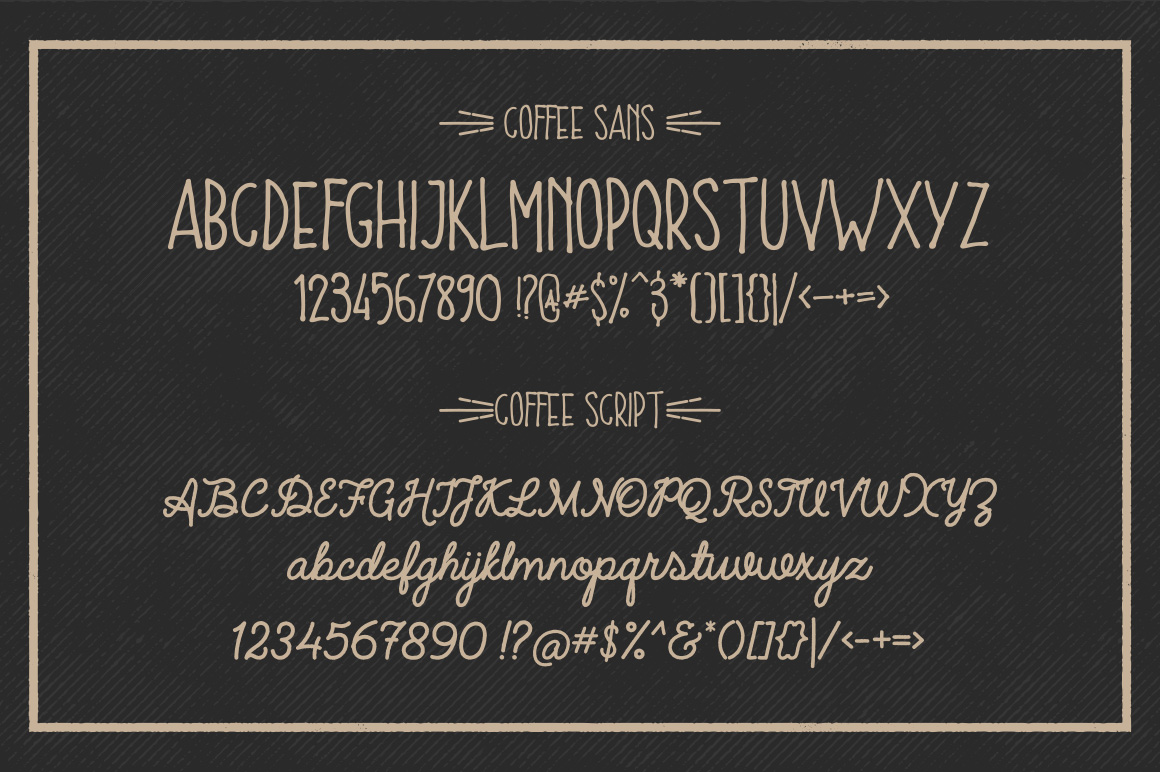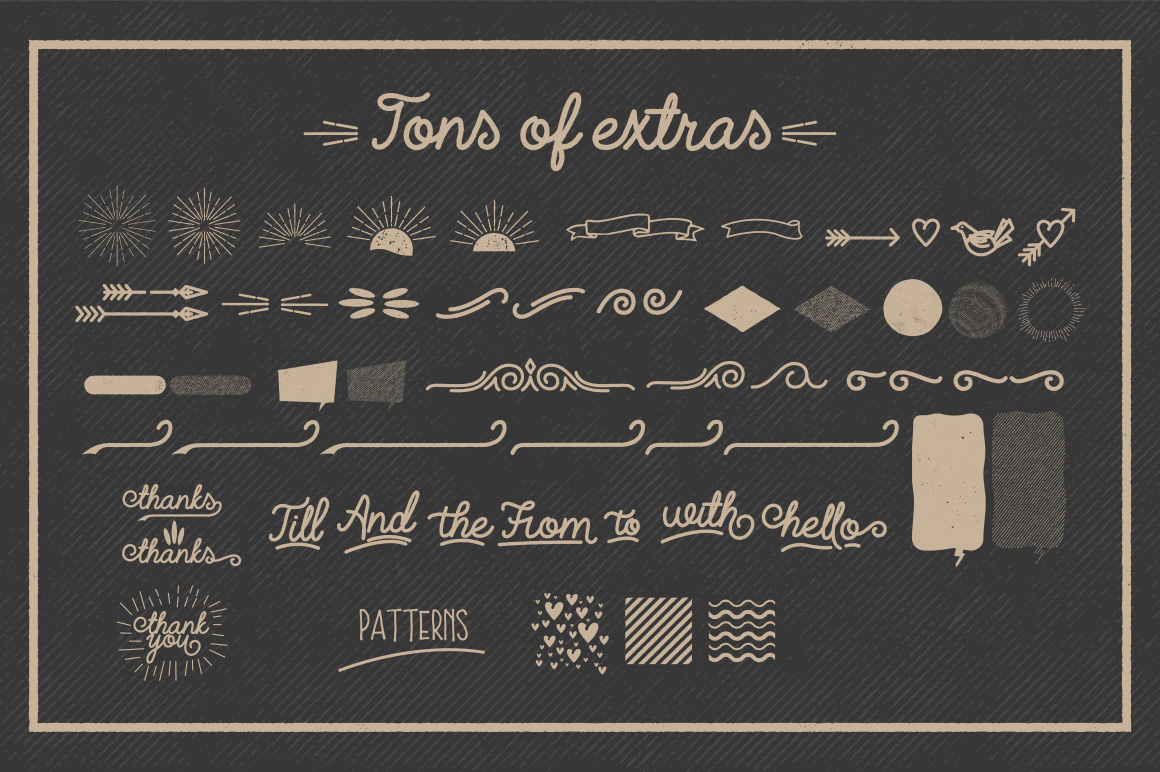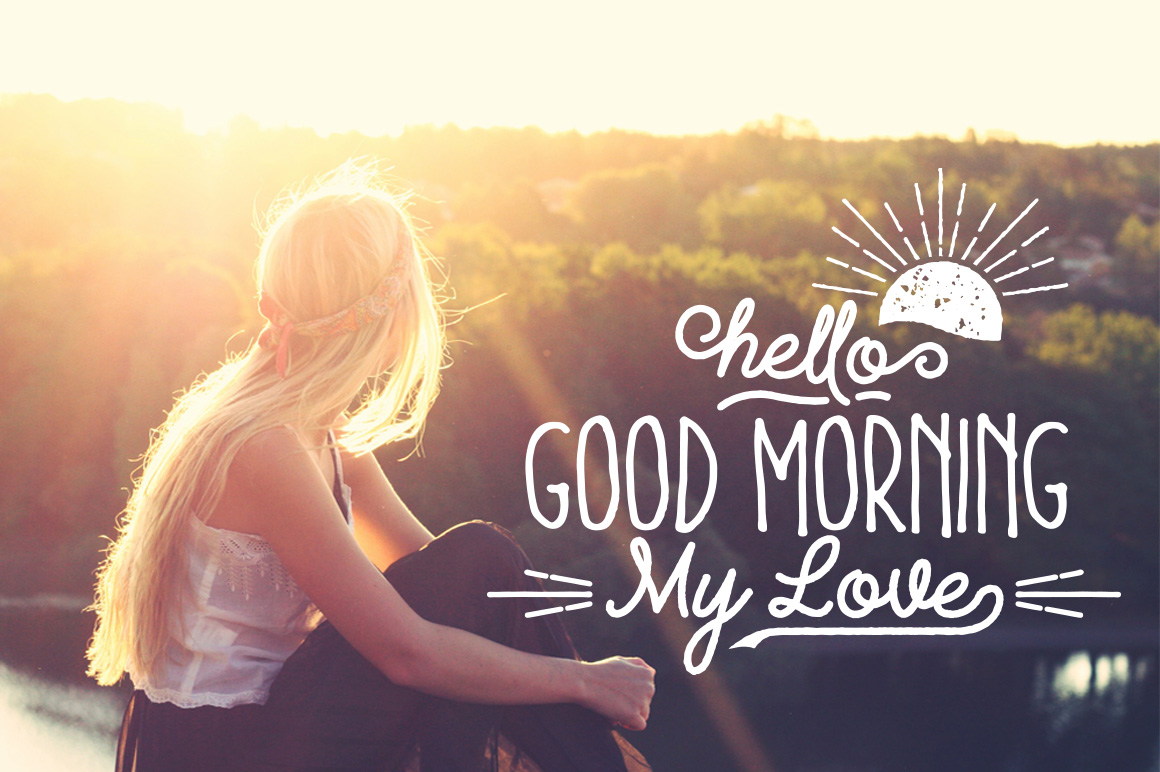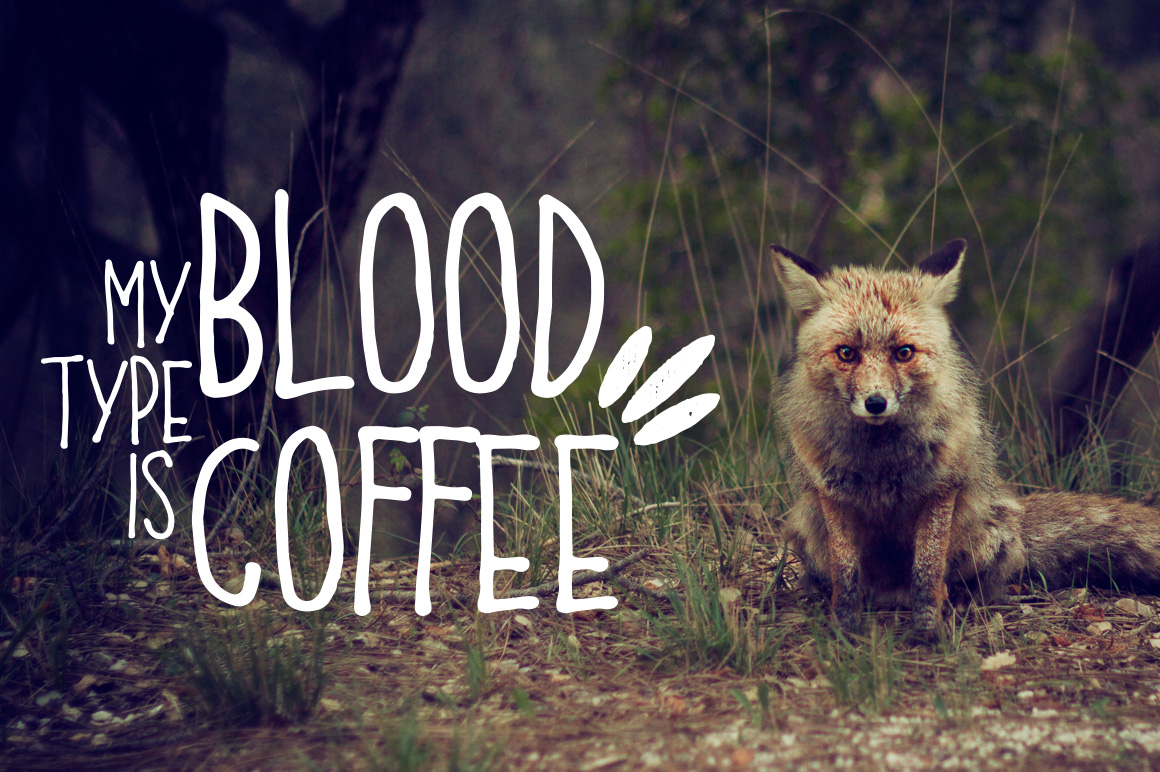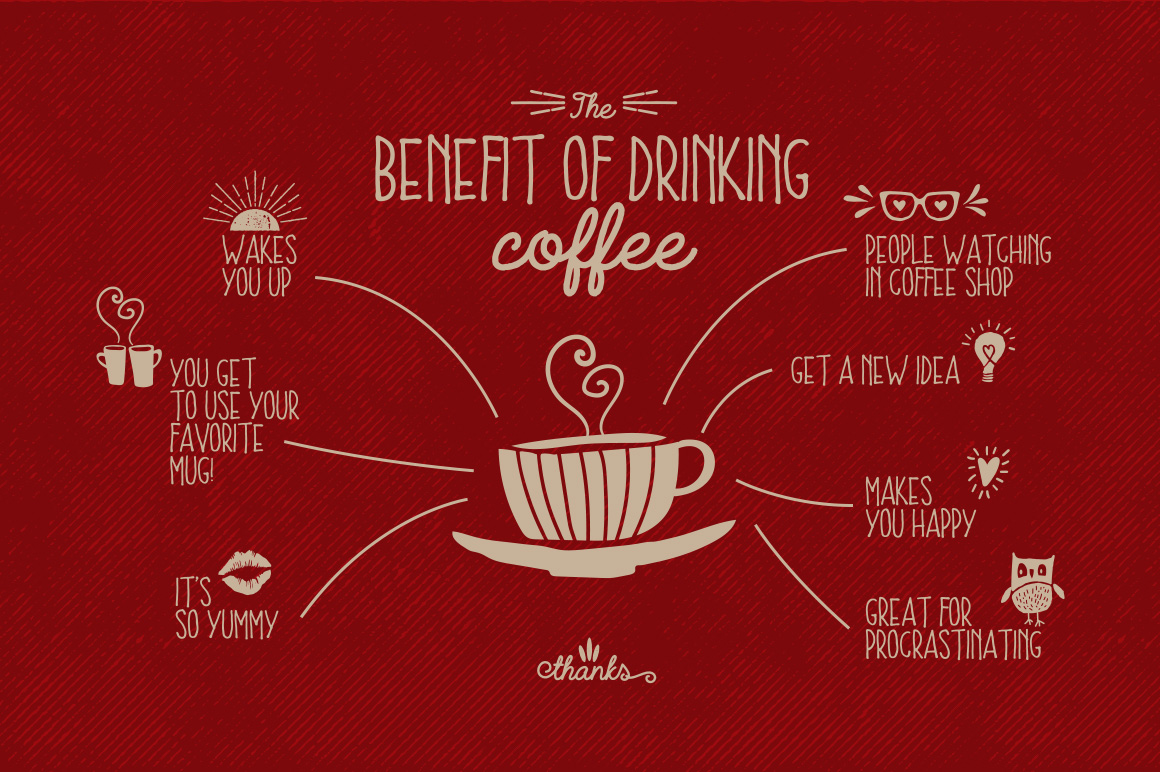
Coffee Font + Extras Font: A Quaint and Friendly Duo to Warm Up Your Designs
Are you tired of using the same old fonts in your design work? Look no further! The Coffee Font + Extras Font duo is here to add a touch of warmth and quaintness to your creations. This charming font combination is perfect for designers and crafters who want to give their work a friendly and approachable feel.
A Perfect Pair: Sans Serif and Script Fonts
The Coffee Font + Extras Font set includes two fonts that work beautifully together: a sans serif font and a script font. The sans serif font is clean and modern, while the script font adds a touch of elegance and sophistication. When used together, they create a unique and visually appealing contrast that will make your designs stand out.
What Makes Coffee Font + Extras Font So Special?
So, what makes this font duo so special? For starters, the fonts are phenomenally quaint and friendly, making them perfect for designs that require a personal touch. The sans serif font is great for headlines, titles, and short paragraphs of text, while the script font is ideal for adding a decorative touch to your designs. The combination of the two fonts creates a beautiful visual harmony that will make your designs look warm and inviting.
Embellish Your Designs with Extras
But that’s not all! The Coffee Font + Extras Font set also includes a range of extras that you can use to further embellish your designs. These extras include decorative swashes, flourishes, and ornaments that you can use to add a touch of personality to your work. Whether you’re designing a logo, brochure, or social media graphic, these extras will help you create a unique and eye-catching design.
Why Choose Coffee Font + Extras Font?
There are many font duos on the market, but Coffee Font + Extras Font stands out from the rest. Here are just a few reasons why:
- Unique and Quaint Design: The Coffee Font + Extras Font duo has a unique and quaint design that will add a touch of warmth to your designs.
- Versatile: The fonts are versatile and can be used for a wide range of design projects, from logos and branding to packaging and advertising.
- Easily Readable: The sans serif font is clean and easy to read, making it perfect for body text and headlines.
- High-Quality: The fonts are high-quality and well-designed, ensuring that your designs look professional and polished.